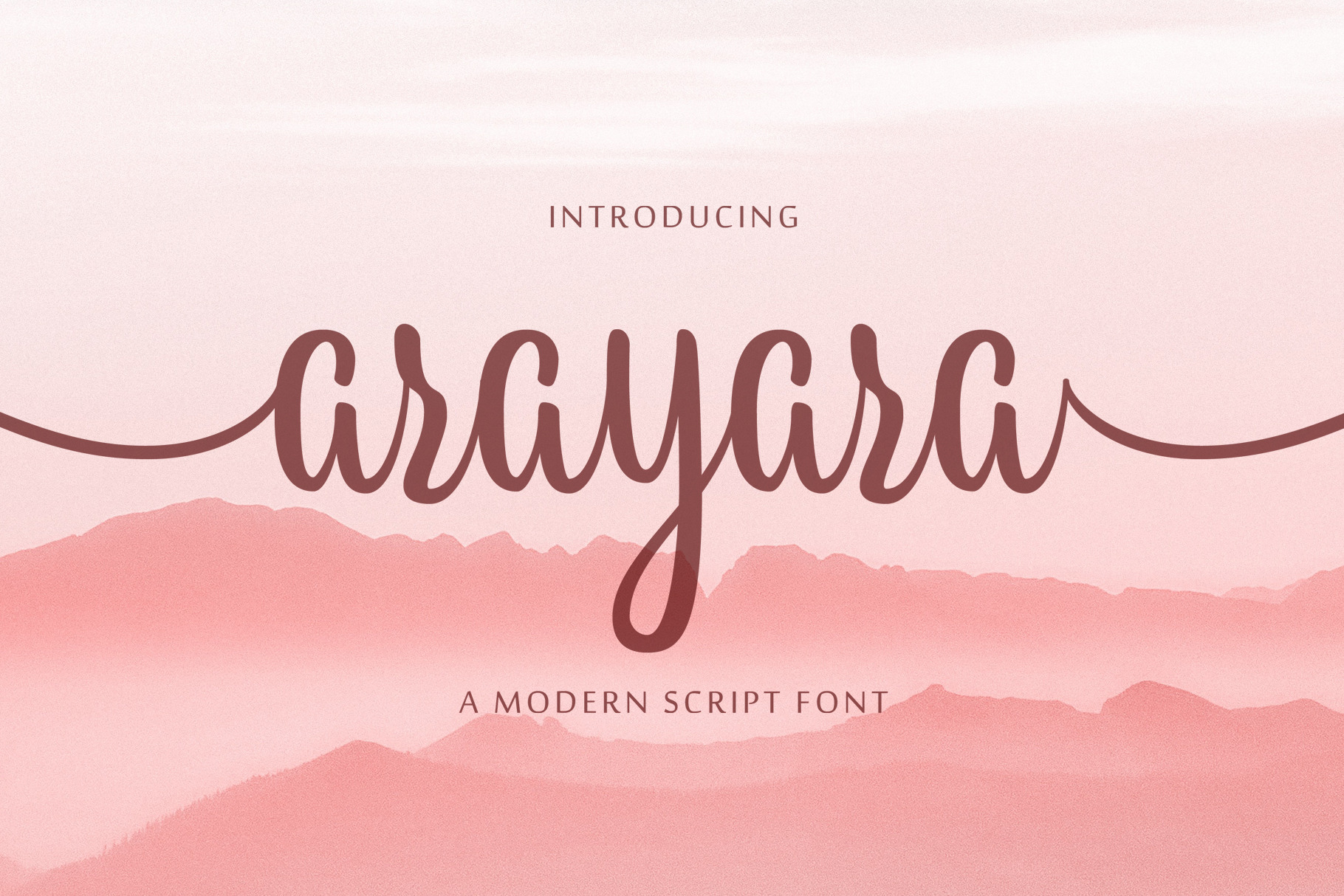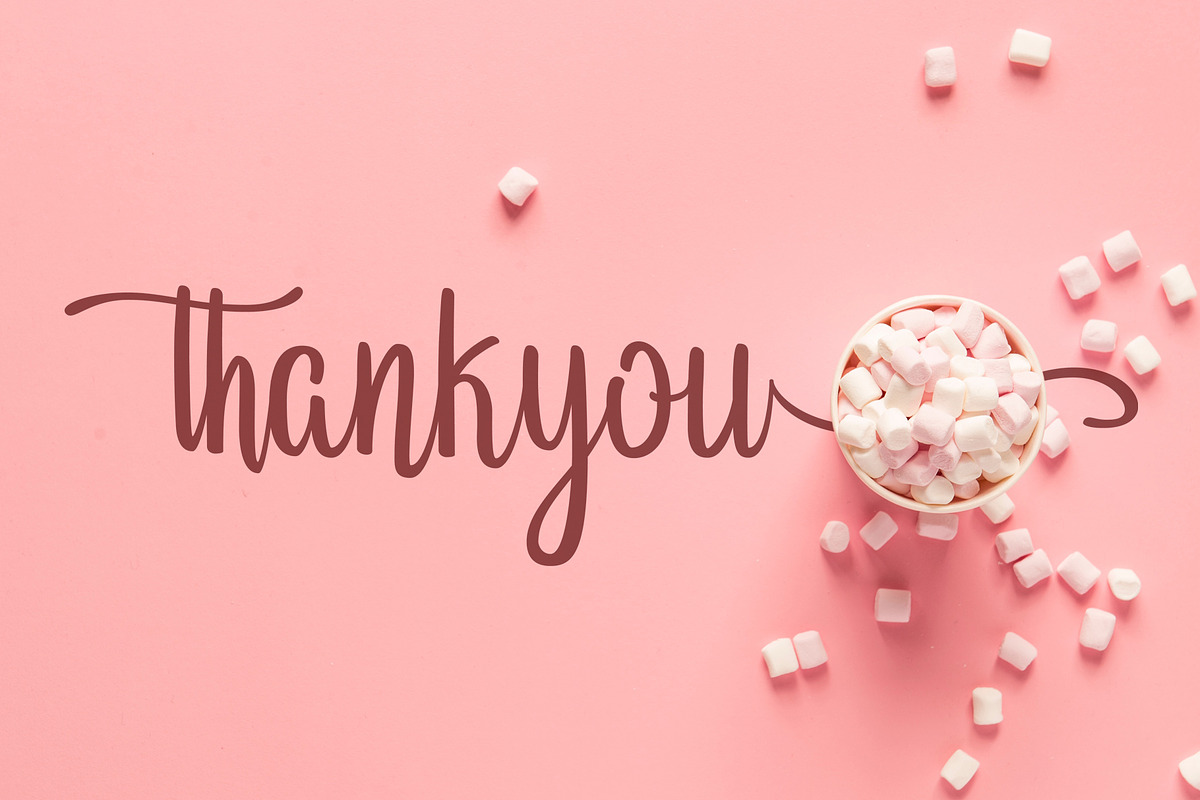
Arayara - Modern Script Fonts
Introducing Arayara Script Font.
Arayara Script is modern and elegant font script. Comes with many opentype feature, upper and lower case standard character, punctuation and numerals, multilingual characters, ligatures, stylistic alternates, beginning and ending, and many more glyph.